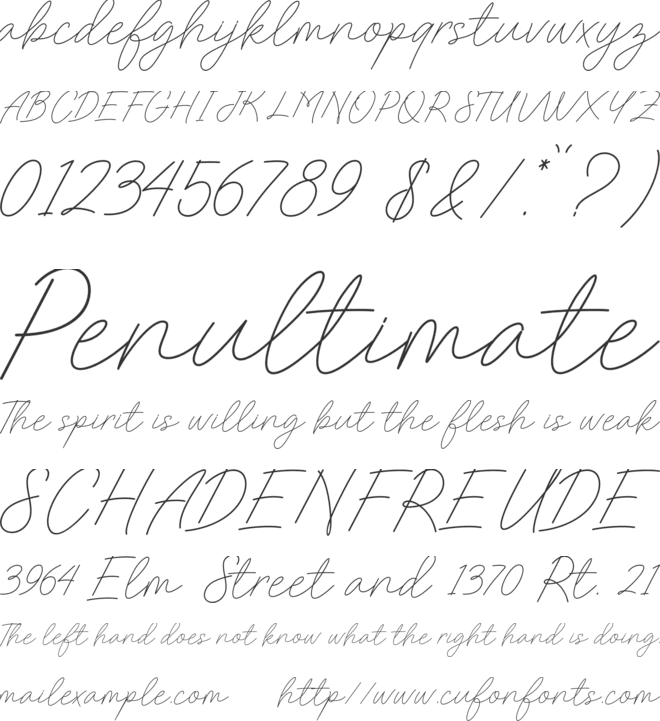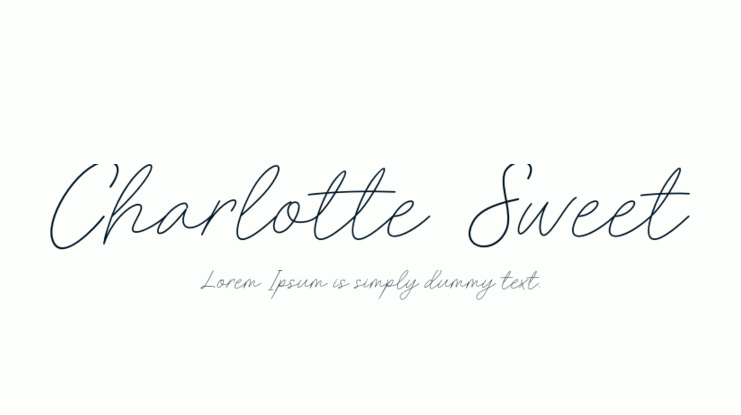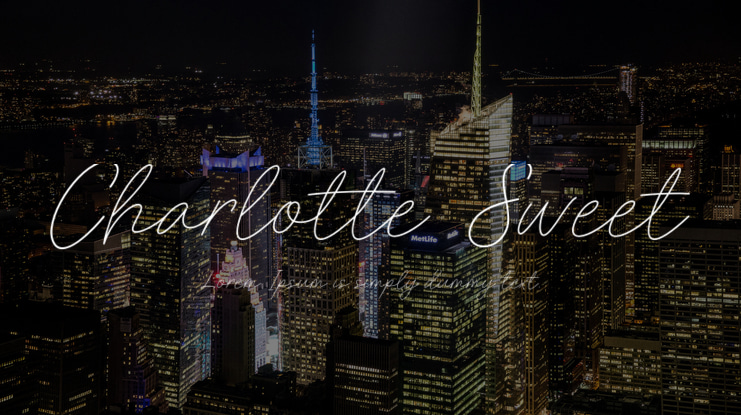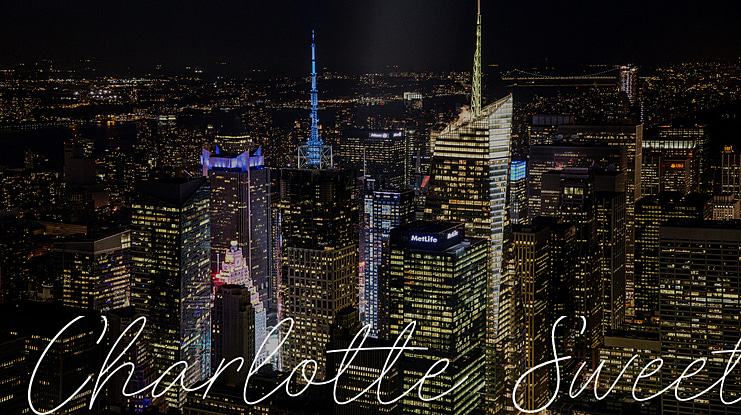
Charlotte Sweet Font
Charlotte Sweet is a modern script with a classy style. Its perfect for photography, signature, branding, magazine, and every other designs which needs a simple, yet strong typeface.